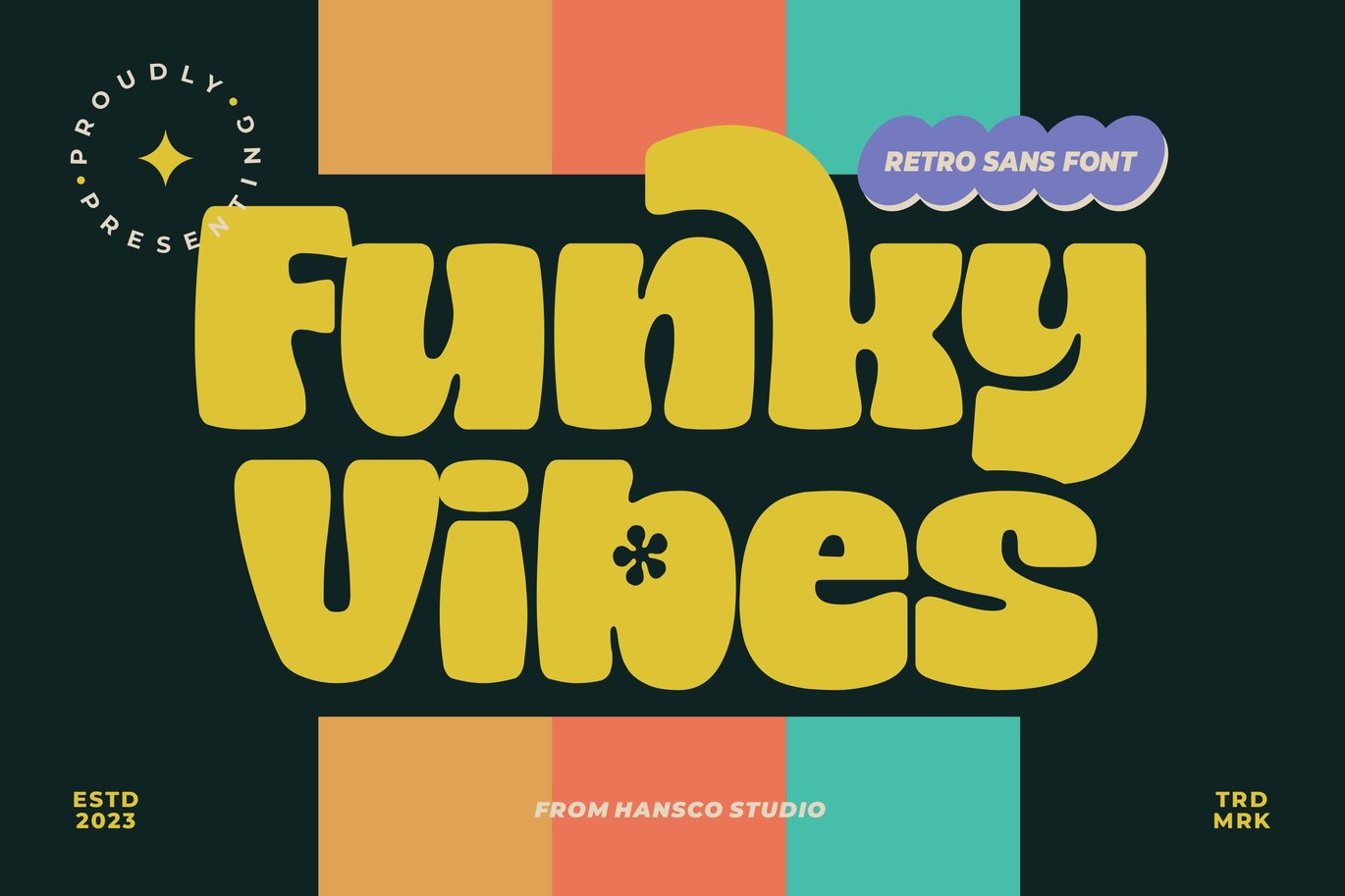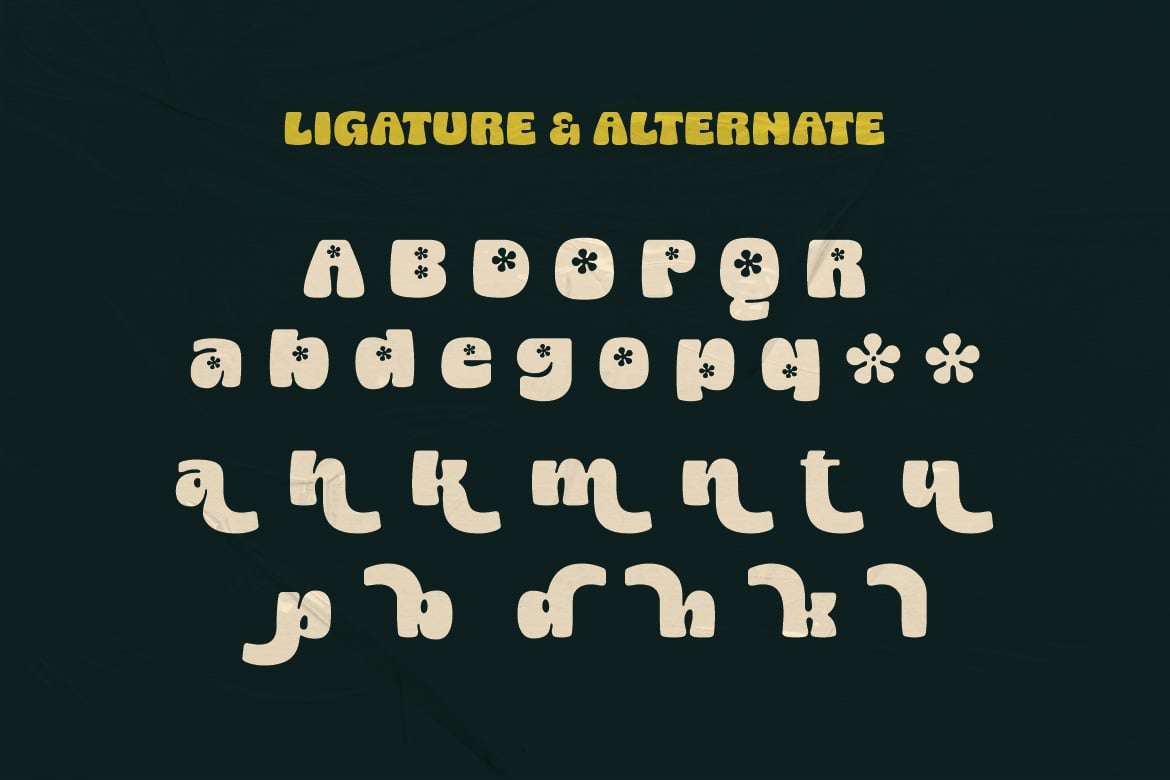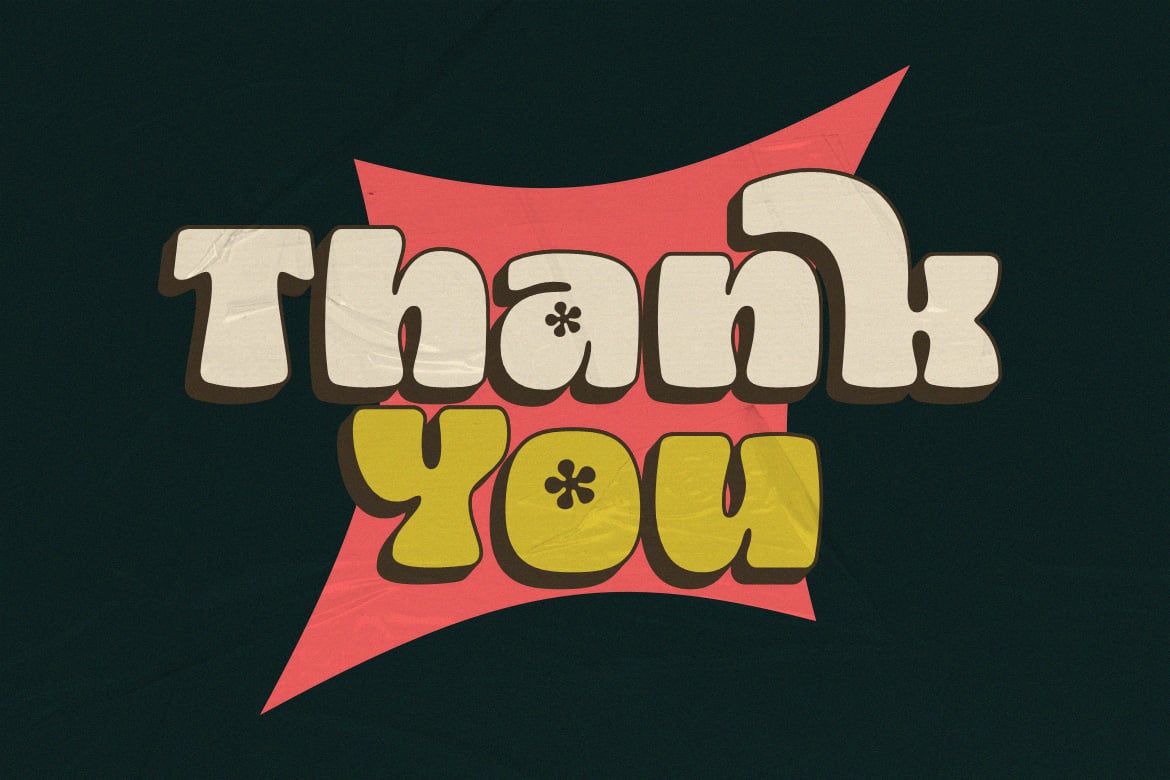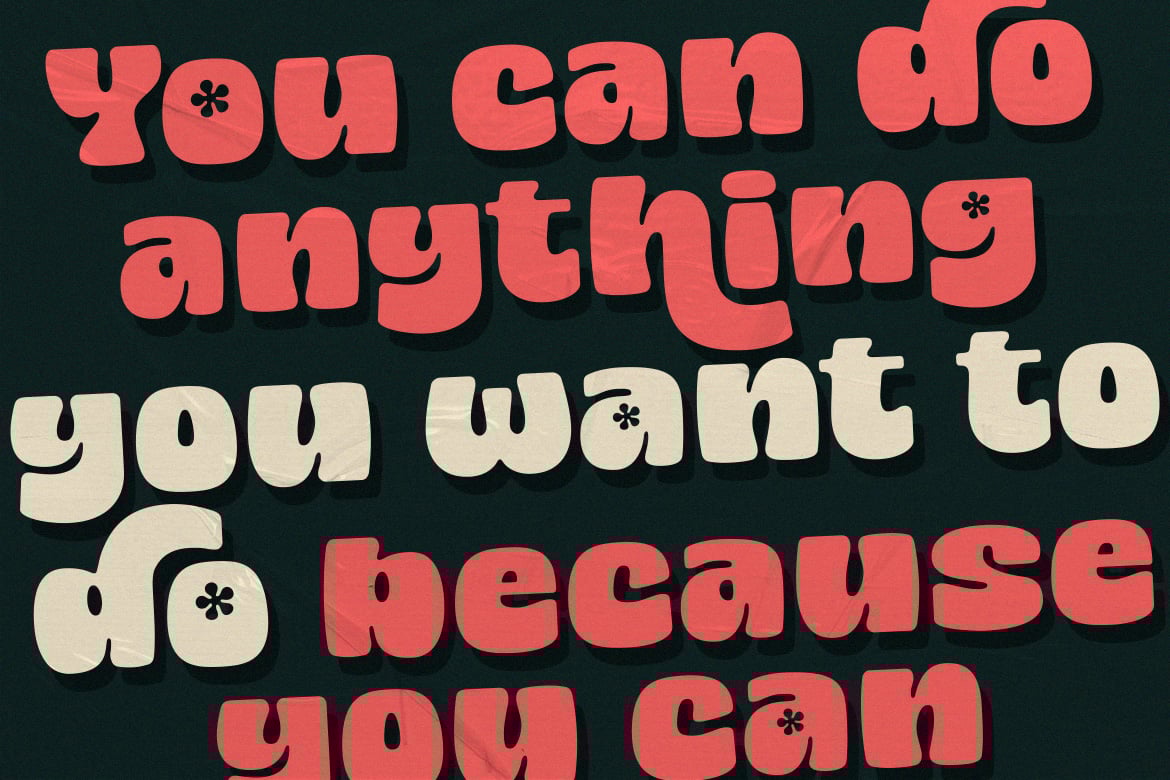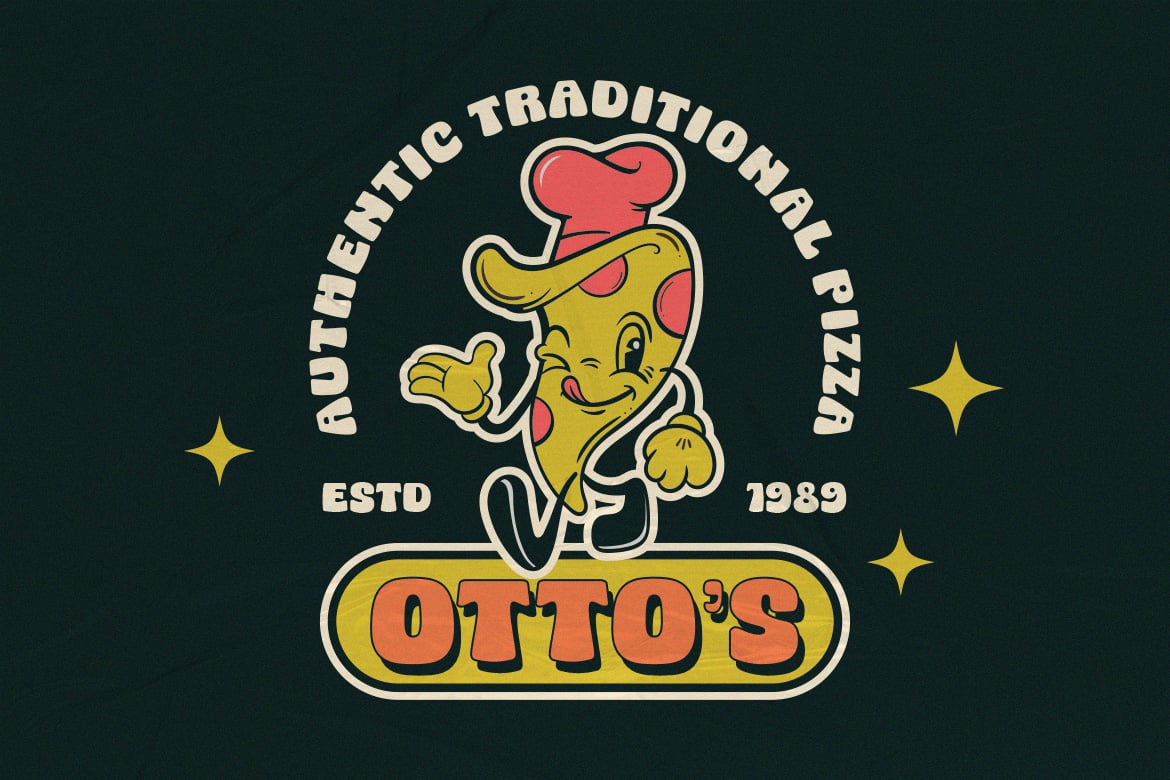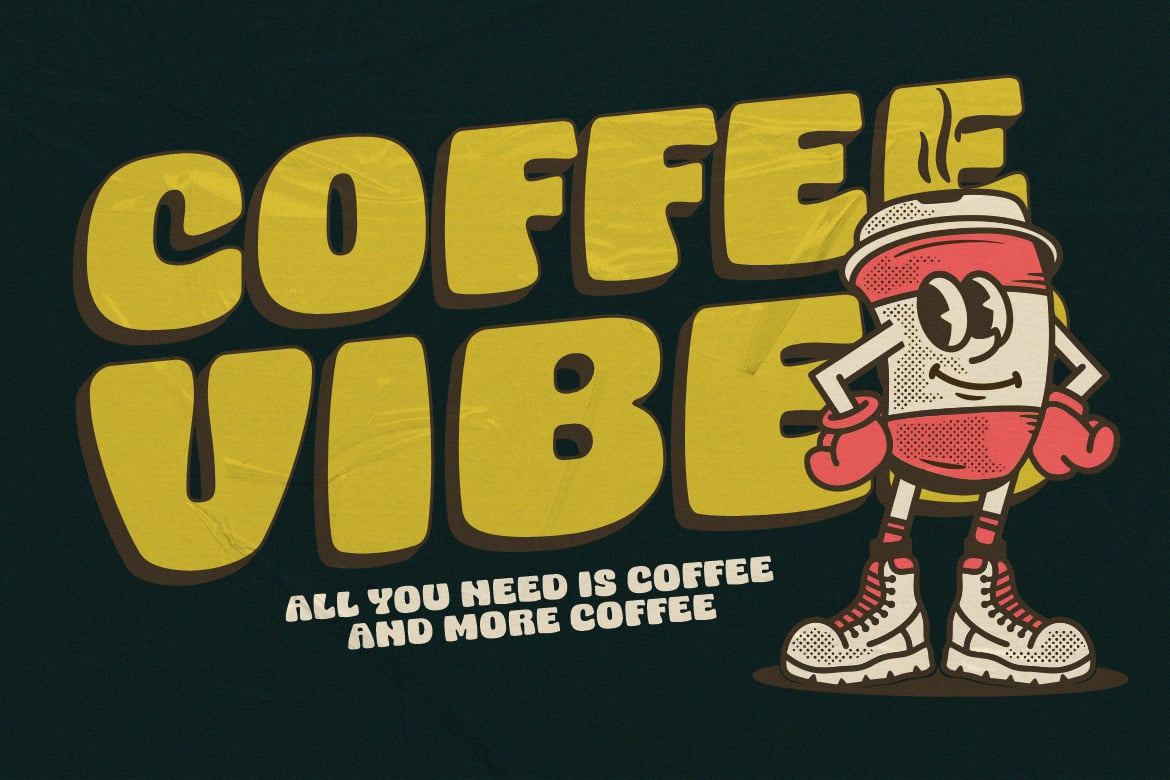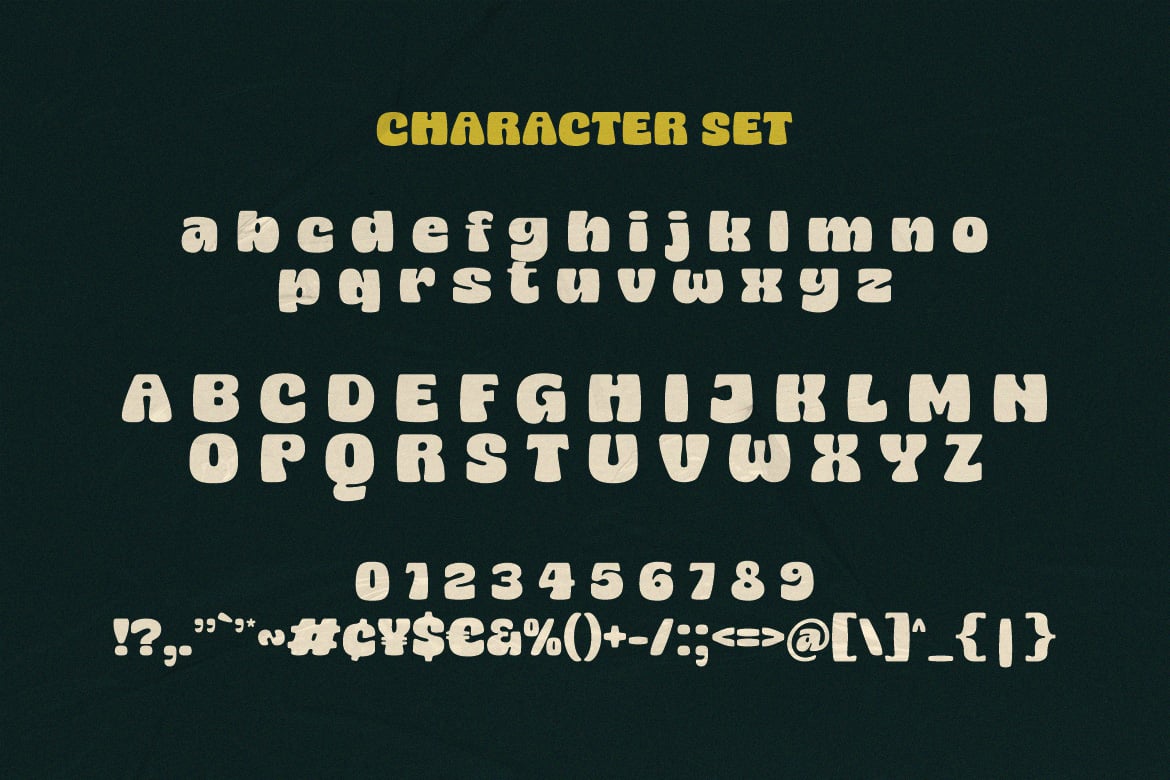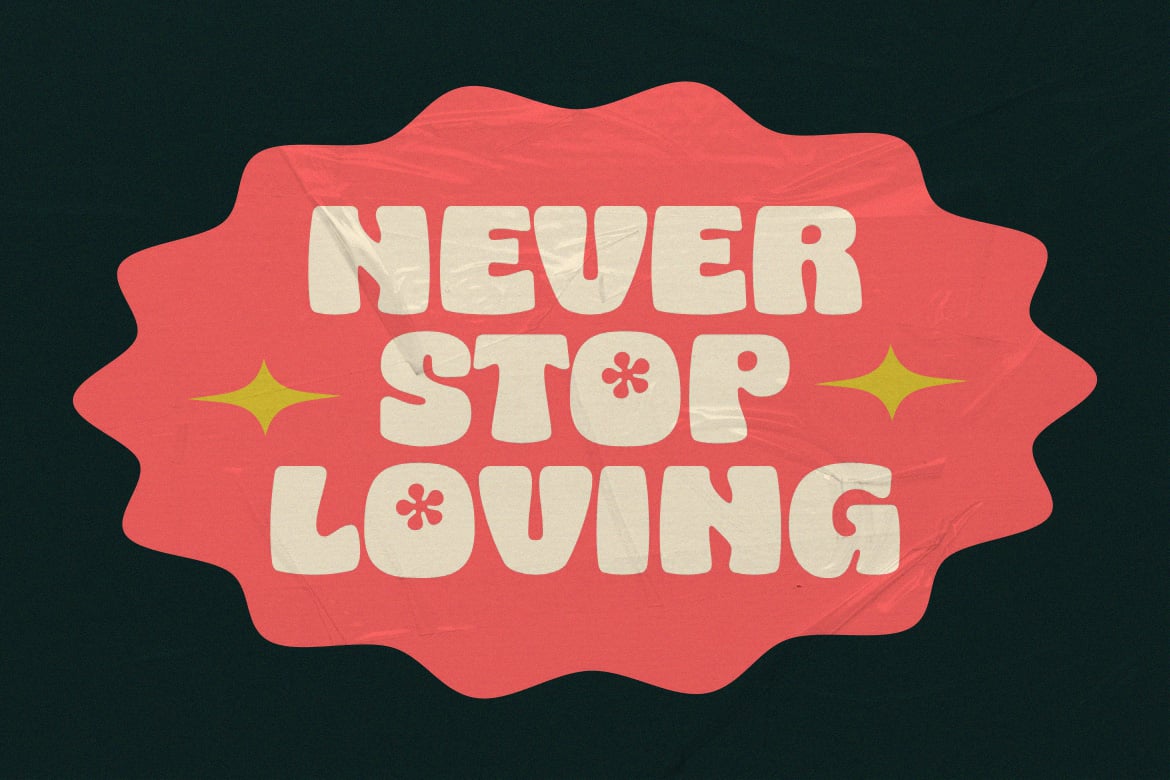
Funky Vibes Font
Funky Vibes font is a retro psychedelic font style with rounded touch. Equipped with all complete characters ranging from uppercase letters, lowercase letters, numbers, punctuation marks and multi-lingual support, this font is ready to be used in any project. Very suitable for logotype, Stickers, Packaging design, Cricut Project, headlines, brand identity, posters, magazines, books, YouTube, Instagram, websites, Canva, Corjl or any of your creative design projects. Use this Funky Vibes font to add that special modern retro psychedelic touch to any design idea you can think of!
- Alternate Character